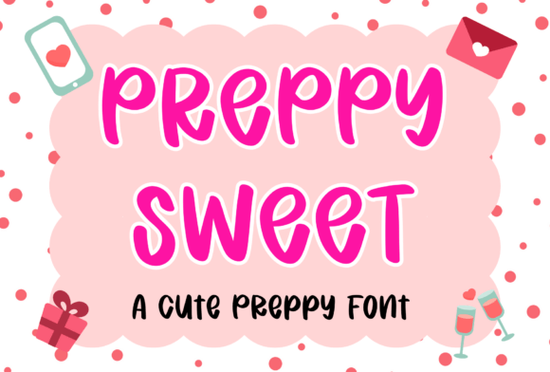
If you're looking for a font that blends playful charm with clean, modern lines, the Preppy Sweet Font might be exactly what your next project needs. Designed with soft curves, rounded terminals, and a light-hearted vibe, it captures that effortlessly cute aesthetic popular in stationery, apparel, and digital branding especially among creators who love a preppy or girly touch without veering into overly cutesy territory.
Unlike bolder display fonts like the College Jersey Black Grunge or street-inspired options such as the Death Subway Graffiti, Preppy Sweet leans into subtlety and polish. It’s not about loud statements it’s about refined sweetness that still feels fresh and on-trend.
What makes Preppy Sweet work so well for small businesses and crafters?
One of its biggest strengths is versatility. The font maintains excellent readability even at smaller sizes, which is crucial if you’re designing planners, notebook covers, or product labels. At the same time, it shines in larger formats think T-shirt quotes, social media graphics, or sublimation mugs where its gentle curves and balanced spacing add personality without overwhelming the design.
For print-on-demand sellers, this balance is key. You want something distinctive enough to stand out in a crowded marketplace but neutral enough to pair easily with other design elements. Preppy Sweet fits that sweet spot (pun intended). It pairs beautifully with minimalist layouts, pastel color palettes, and hand-drawn illustrations making it a go-to for Etsy shop owners creating greeting cards, sticker sheets, or digital downloads.
How does it compare to other trendy fonts?
If you’ve used fonts like the Slime Drip or Old Game Font, you know those lean heavily into niche aesthetics fun for specific themes, but less flexible across projects. Preppy Sweet, by contrast, offers broad appeal. It’s not tied to one trend or era; instead, it channels a timeless “preppy” sensibility updated for today’s design preferences.
Even compared to classic collegiate styles like the Classic Varsity Font, which carries strong sporty connotations, Preppy Sweet feels lighter and more versatile. It’s equally at home on a boutique coffee shop label as it is on a teen’s birthday invitation.
Where can you actually use this font?
Thanks to its clean structure and OpenType compatibility (when available), Preppy Sweet works across both digital and physical mediums. Here are some real-world uses that creators love:
- T-shirt and apparel designs – especially for quote tees targeting teens or young adults
- Branding for lifestyle or beauty small businesses – think skincare labels, boutique logos, or Instagram bios
- Planner inserts and printable journals – headings, section titles, or motivational quotes
- Social media templates – reels, stories, or Pinterest pins with a soft, cohesive look
- Cricut and Silhouette cutting projects – vinyl decals, wall quotes, or custom tote bags
- Packaging and stickers – for handmade soaps, candles, or bakery items
Because it’s designed with consistent stroke weights and open counters, it cuts cleanly on machines and prints crisply even on textured paper or fabric.
Is it beginner-friendly?
You can find the Preppy Sweet font on Creative Fabrica, where it’s often bundled with commercial-use licenses important if you’re selling your creations.
Before you download: a quick checklist
To make the most of Preppy Sweet in your projects, keep these tips in mind:
- Check your license – ensure it covers your intended use (personal, commercial, POD, etc.)
- Pair it wisely – try combining it with a simple sans-serif (like Montserrat or Lato) for contrast
- Avoid overuse – while charming, using it for long paragraphs can reduce readability
- Test print or cut samples – especially for physical products, verify how it renders at your final size
When used thoughtfully, Preppy Sweet adds just the right amount of warmth and style without trying too hard. For designers who value both aesthetics and practicality, it’s a reliable addition to any creative toolkit.